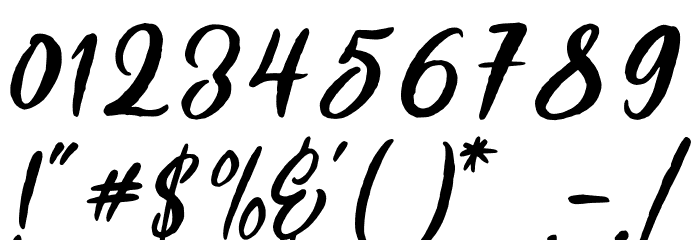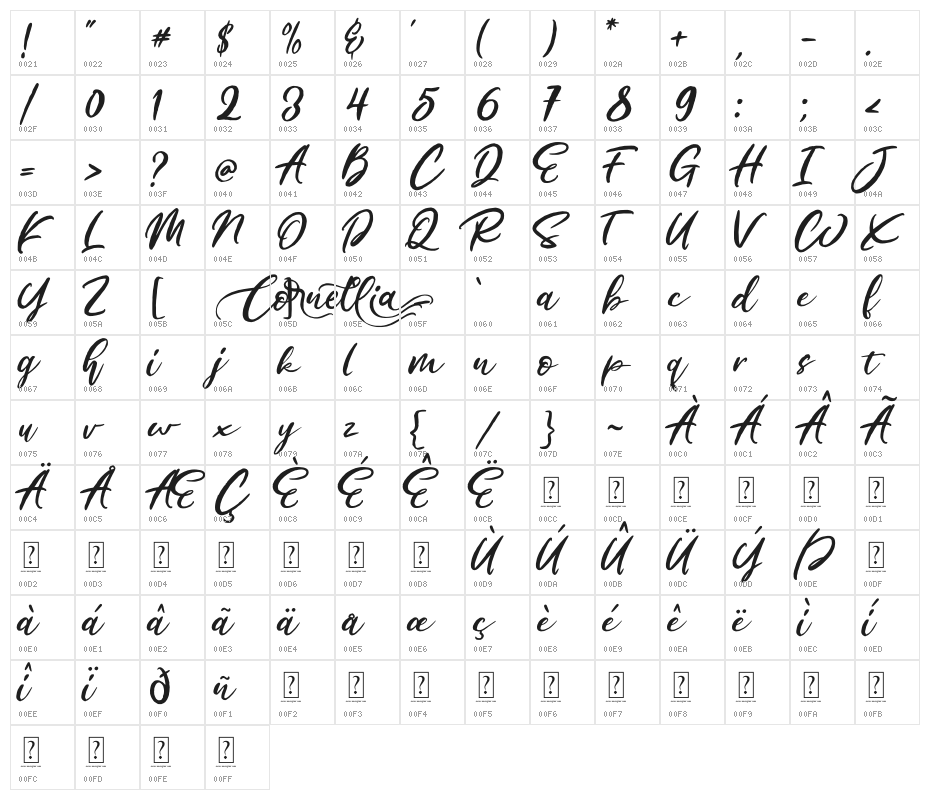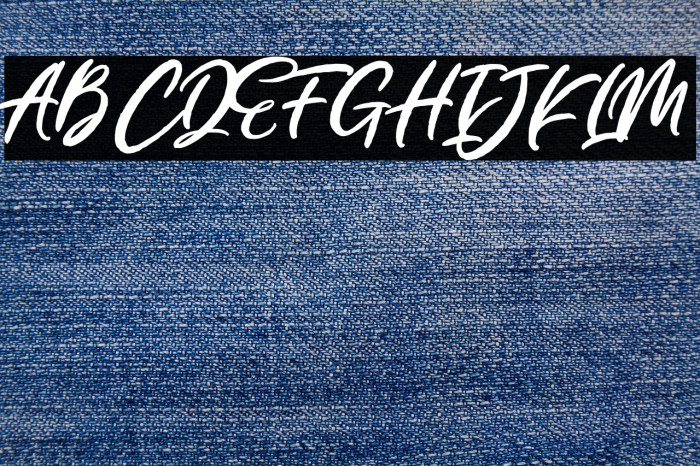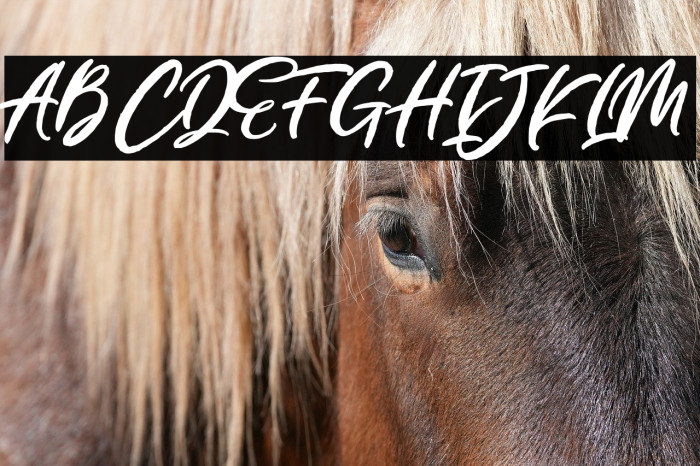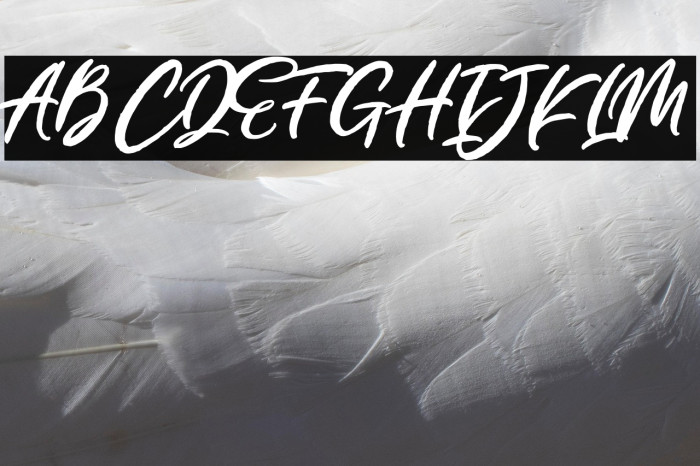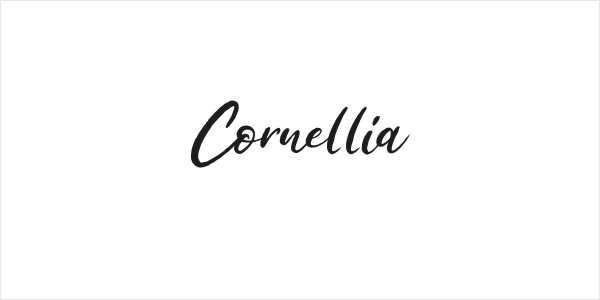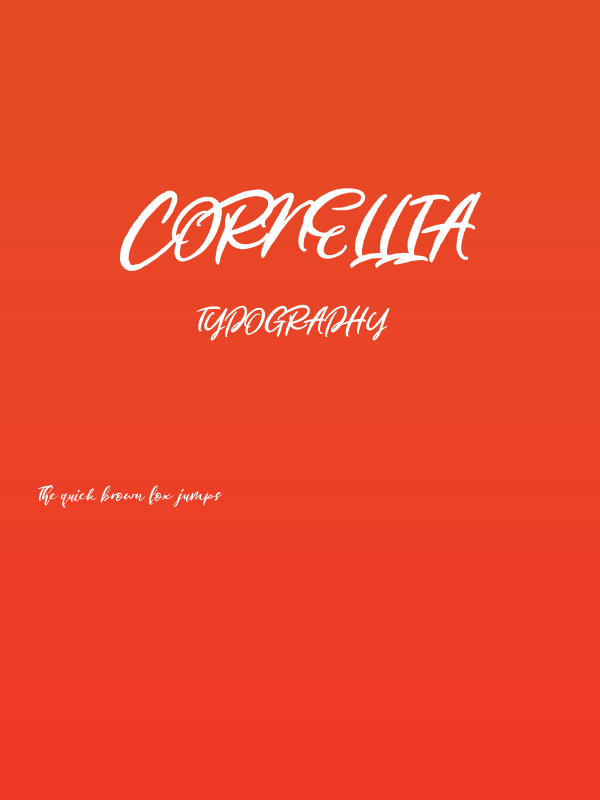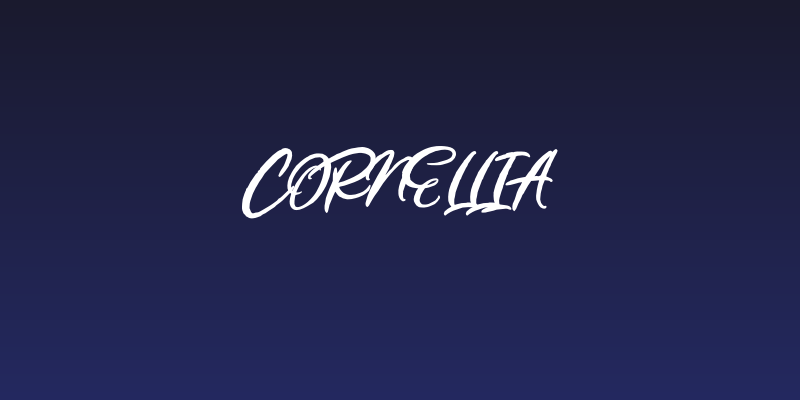
Cornellia Font
Cornellia Description
This font exudes a dynamic and expressive style, characterized by its fluid, handwritten appearance. The letters are crafted with a bold, sweeping motion, giving a sense of movement and energy. The uppercase and lowercase letters maintain a consistent flow, with slightly exaggerated curves and loops that add to its artistic flair. The numerals and special characters are equally expressive, maintaining the same bold and fluid characteristics. This font is perfect for projects that require a personal touch or a sense of elegance and creativity.